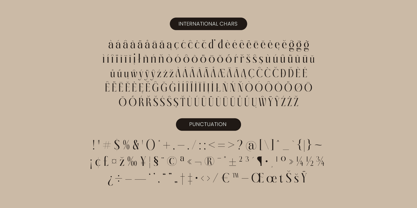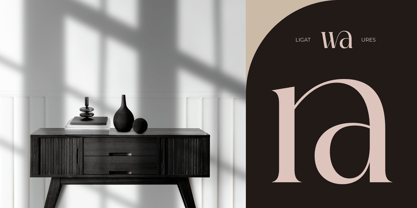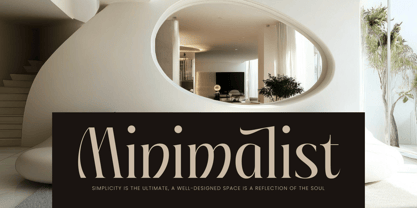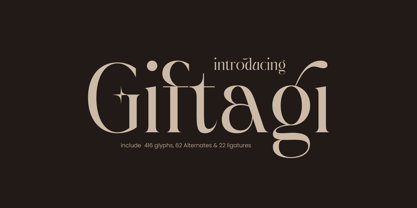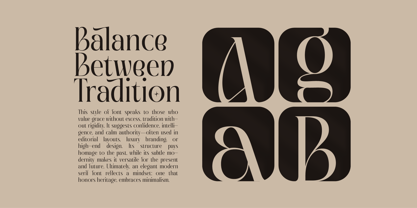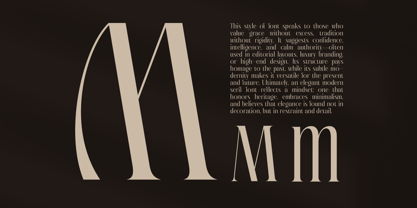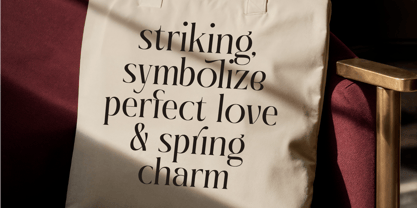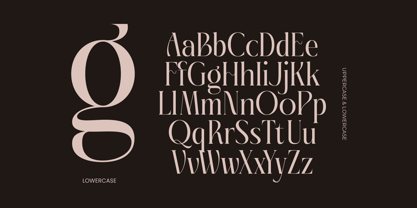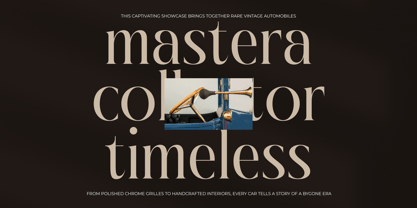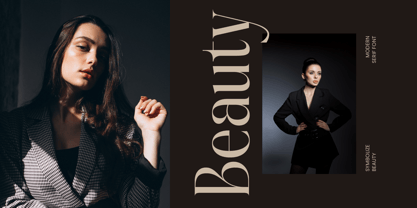
Giftagi
by Timelesstype Studio
The Giftagi Font Family was designed by Heru Utama Putra and published by Timelesstype Studio. Giftagi contains 2 styles and family package options. More about this family
Giftagi - Elegant Modern Serif Font , from Timelesstype , Suitable for any projects such as: logos, branding projects, homeware designs, product packaging, mugs, quotes, posters, shopping bags, t-shirts, book covers, name card, invitation cards, greeting cards, label, photography, watermark, special events, and all your other luxury and beautiful projects that need a Luxury Serif taste.